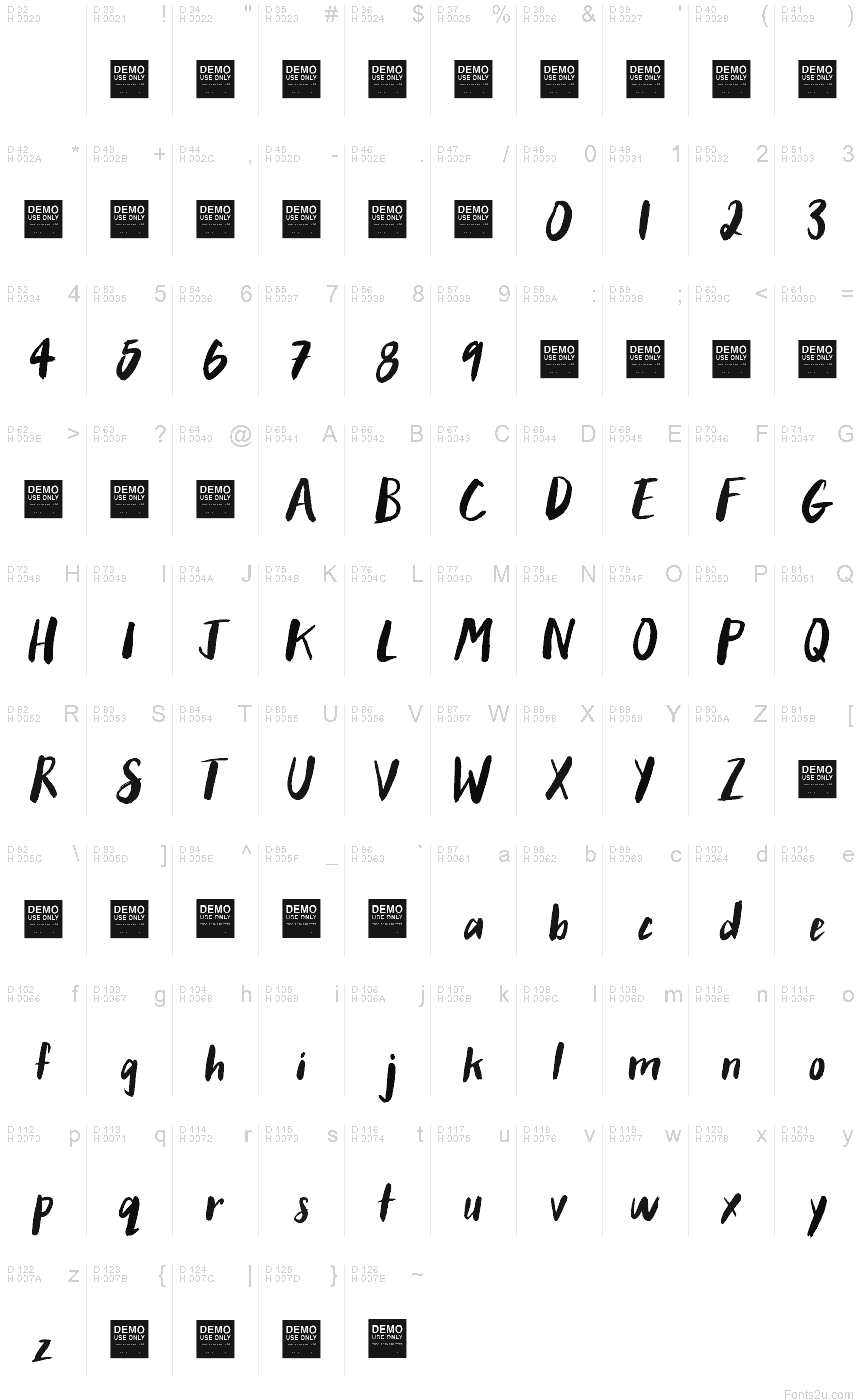
After Hours
After Hours font by BLKBK is a free brush script typeface with the swagger of hand-painted signage outside a late-night bar. Bold, inky strokes taper into quick, lively flicks, giving each word a sense of motion and after-dark energy. The texture feels slightly dry-brushed rather than smooth, adding a human, tactile edge that jumps off the screen or page.
Using After Hours, headlines feel like they were dashed off on a chalkboard just minutes ago, making this free font a natural fit for cocktail menus, bar or café branding, event posters, album covers, lifestyle blogs, and social media promos. It shines at larger sizes where its rough edges and rhythm can really breathe; pair it with a clean geometric sans serif for body copy to keep layouts sharp and readable.